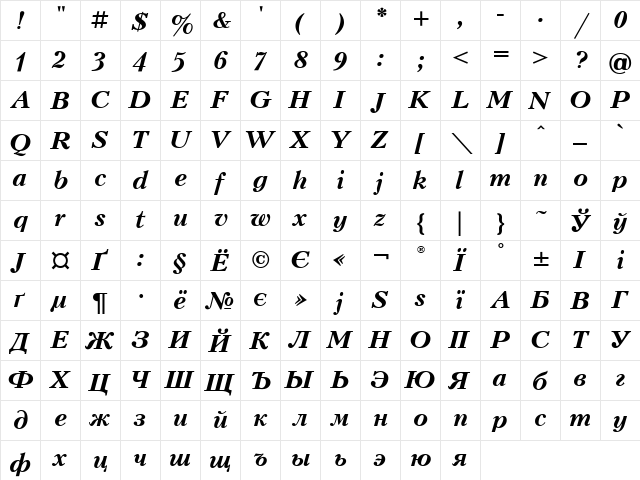
UkrainianPeterburg BoldItalic Font Preview
Design Context for UkrainianPeterburg Typeface
UkrainianPeterburg takes a measured approach to typography — its balanced proportions and neutral character make it a reliable workhorse for both digital and print work. Its italic angle brings a sense of urgency and motion to the letterforms. The heavy weight commands attention and anchors typographic hierarchies.
Pro Tip: Try UkrainianPeterburg for annotation and caption copy alongside an upright companion — the contrast in angle creates a dynamic but ordered typographic system.